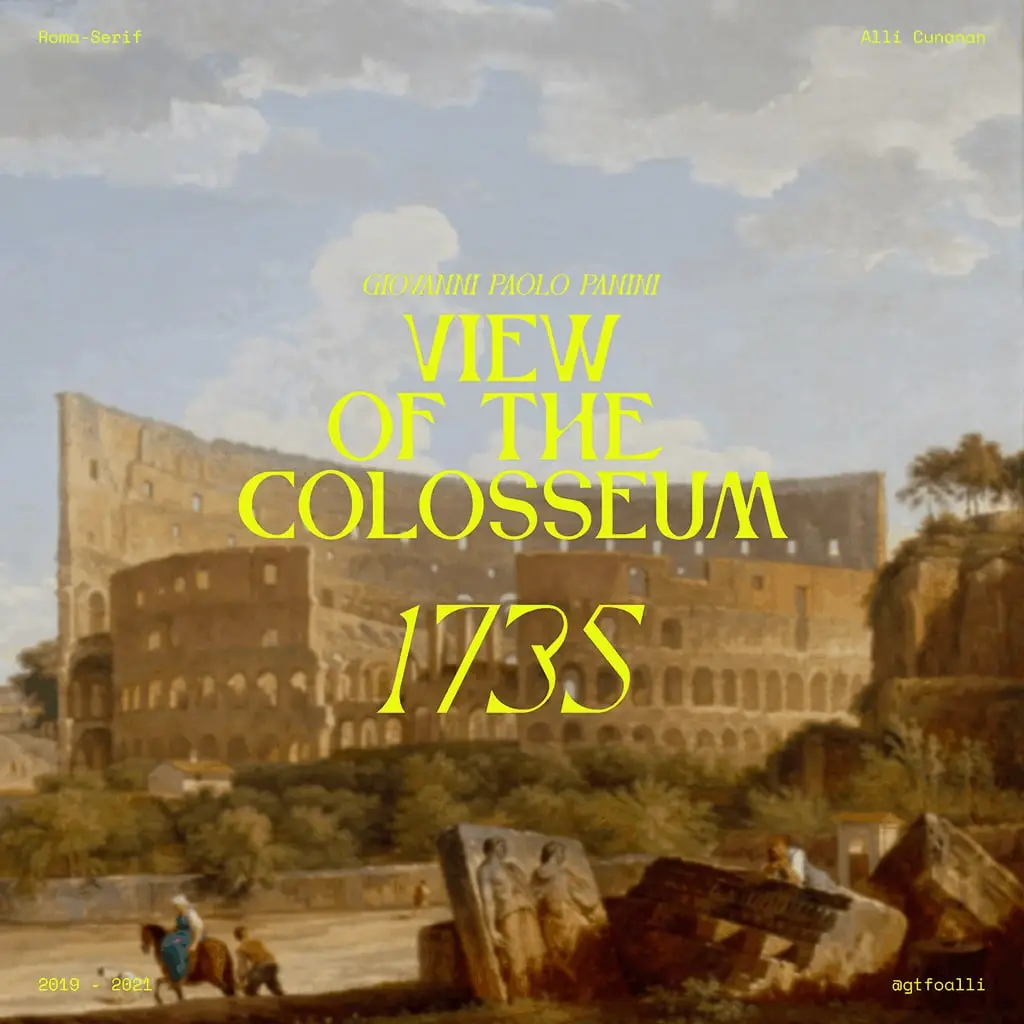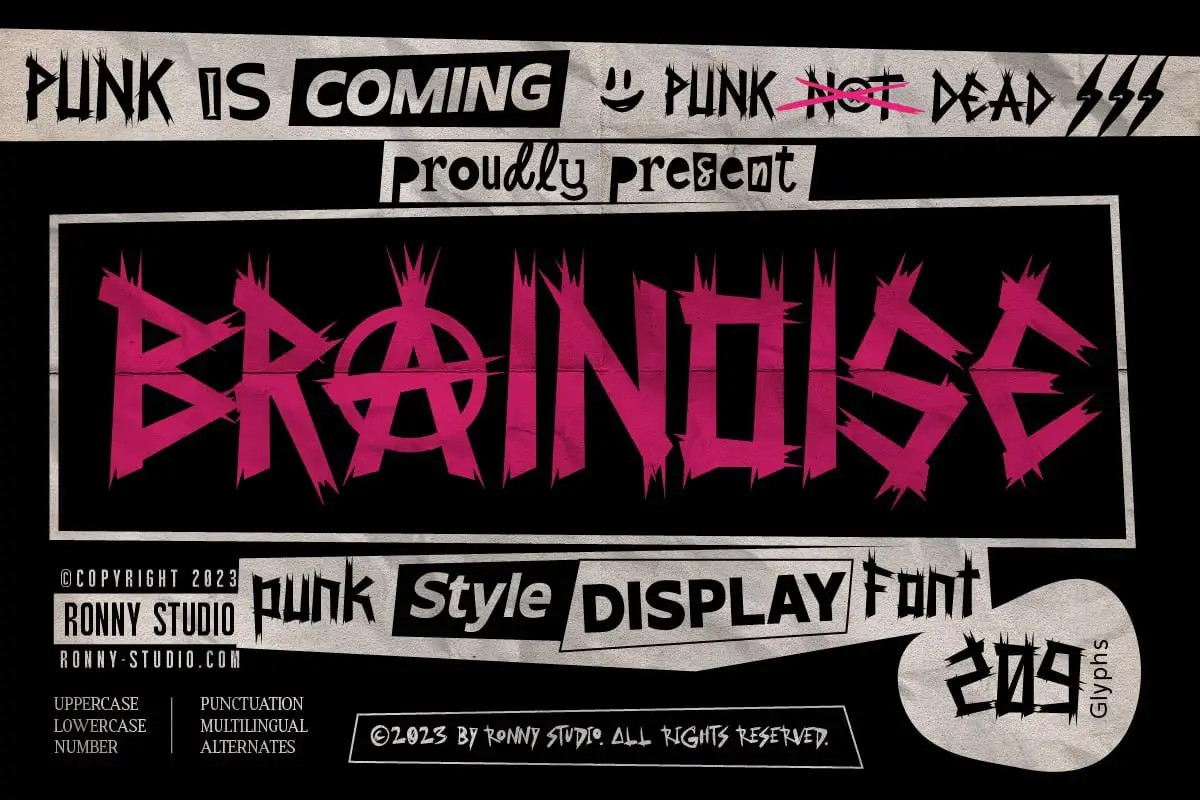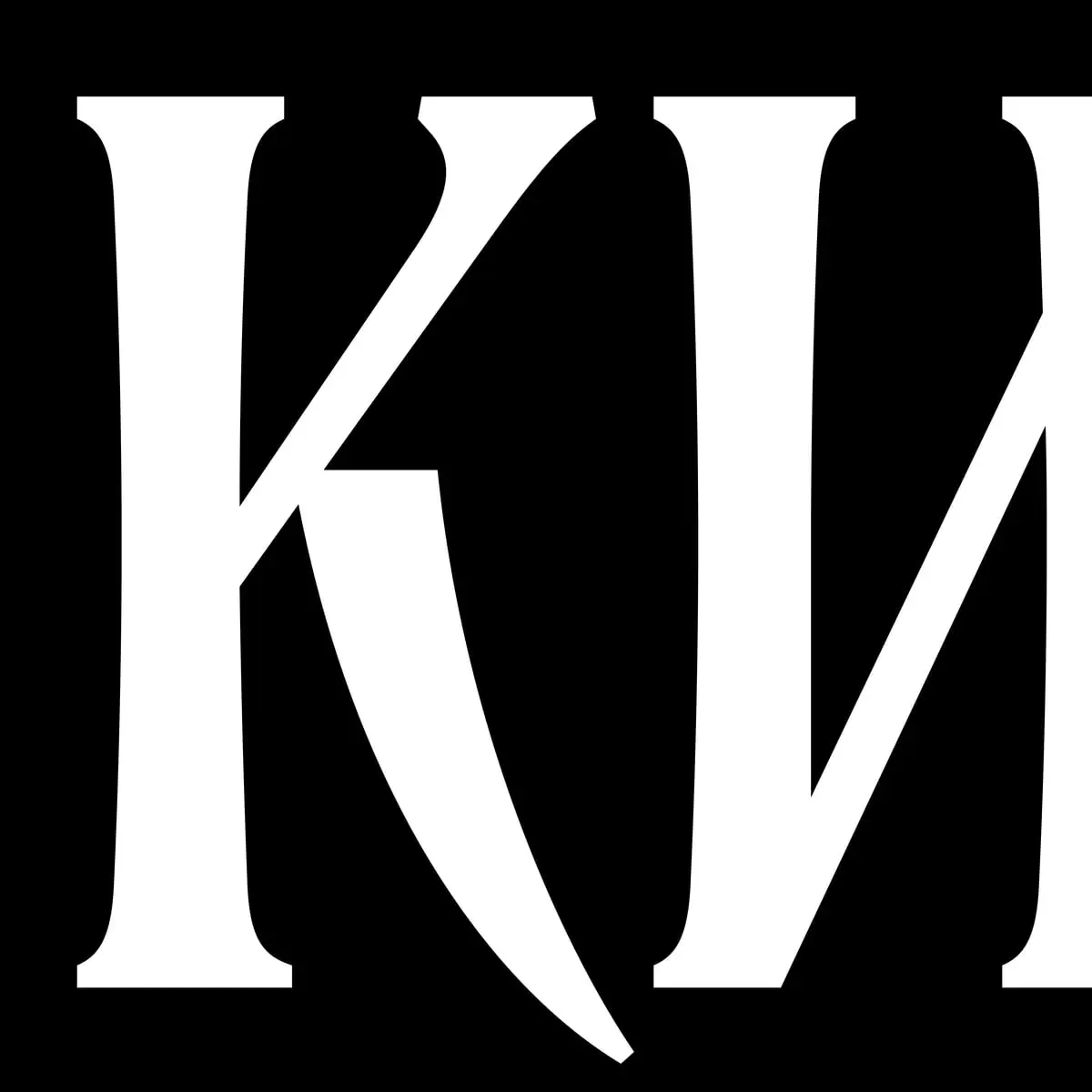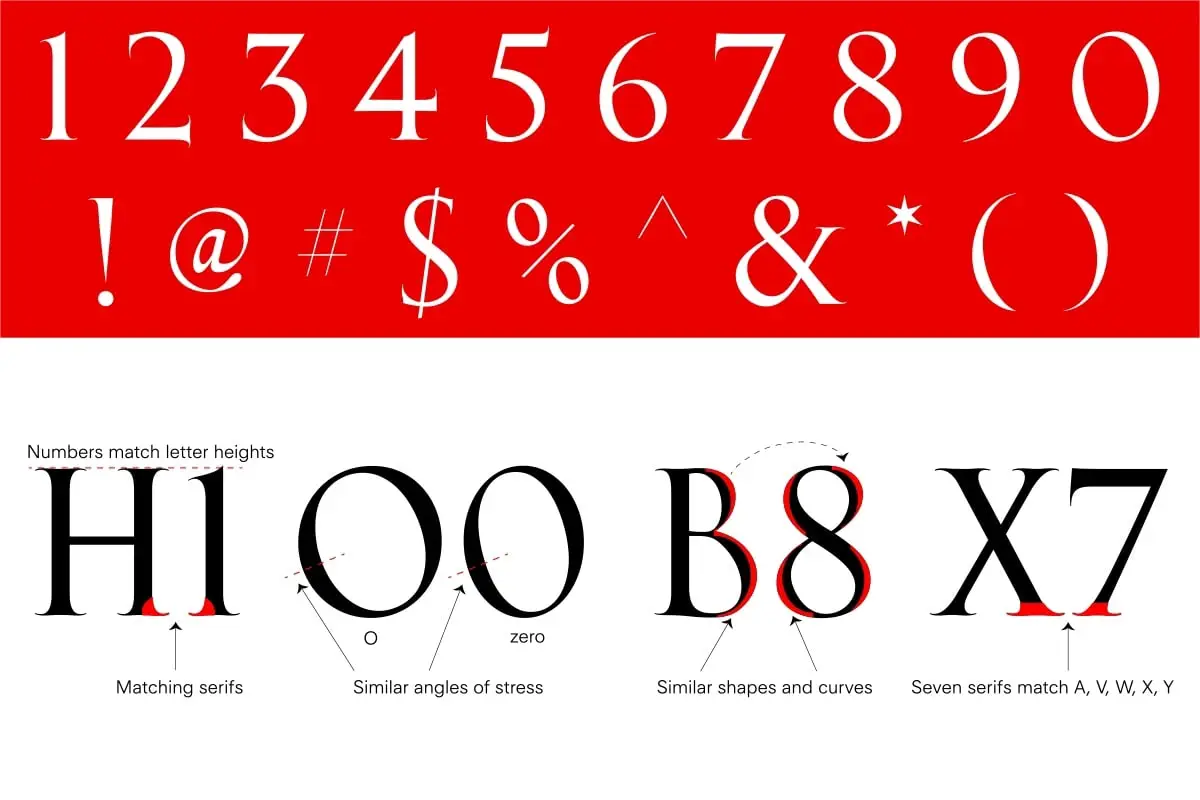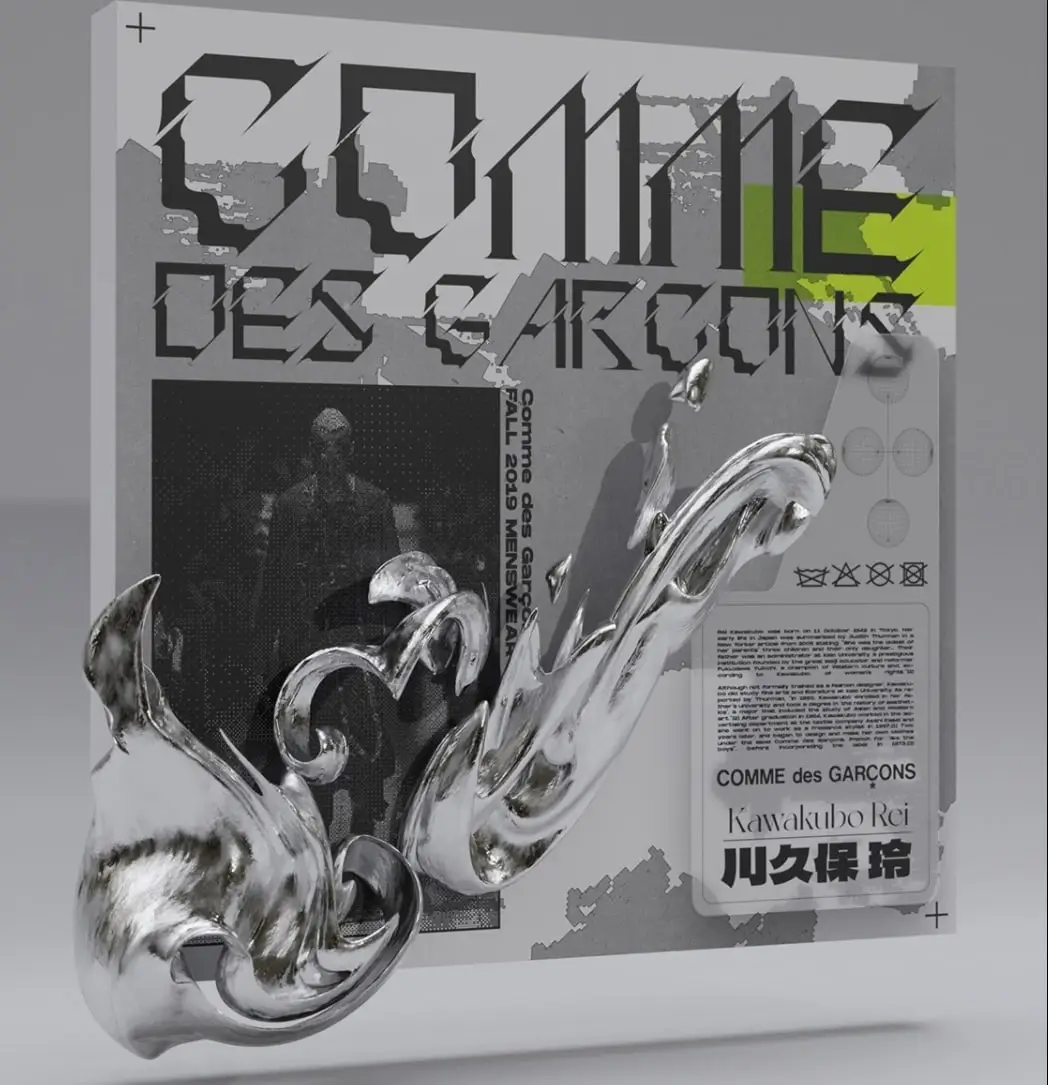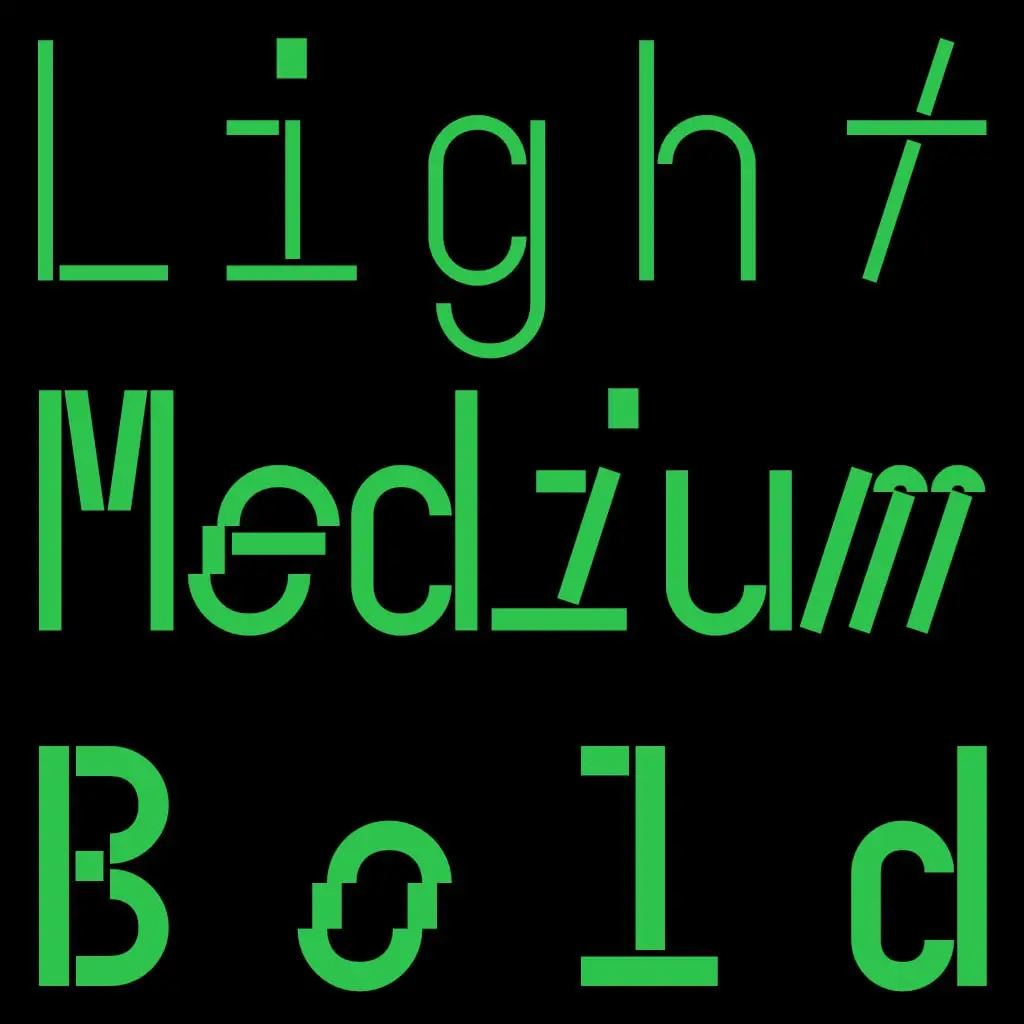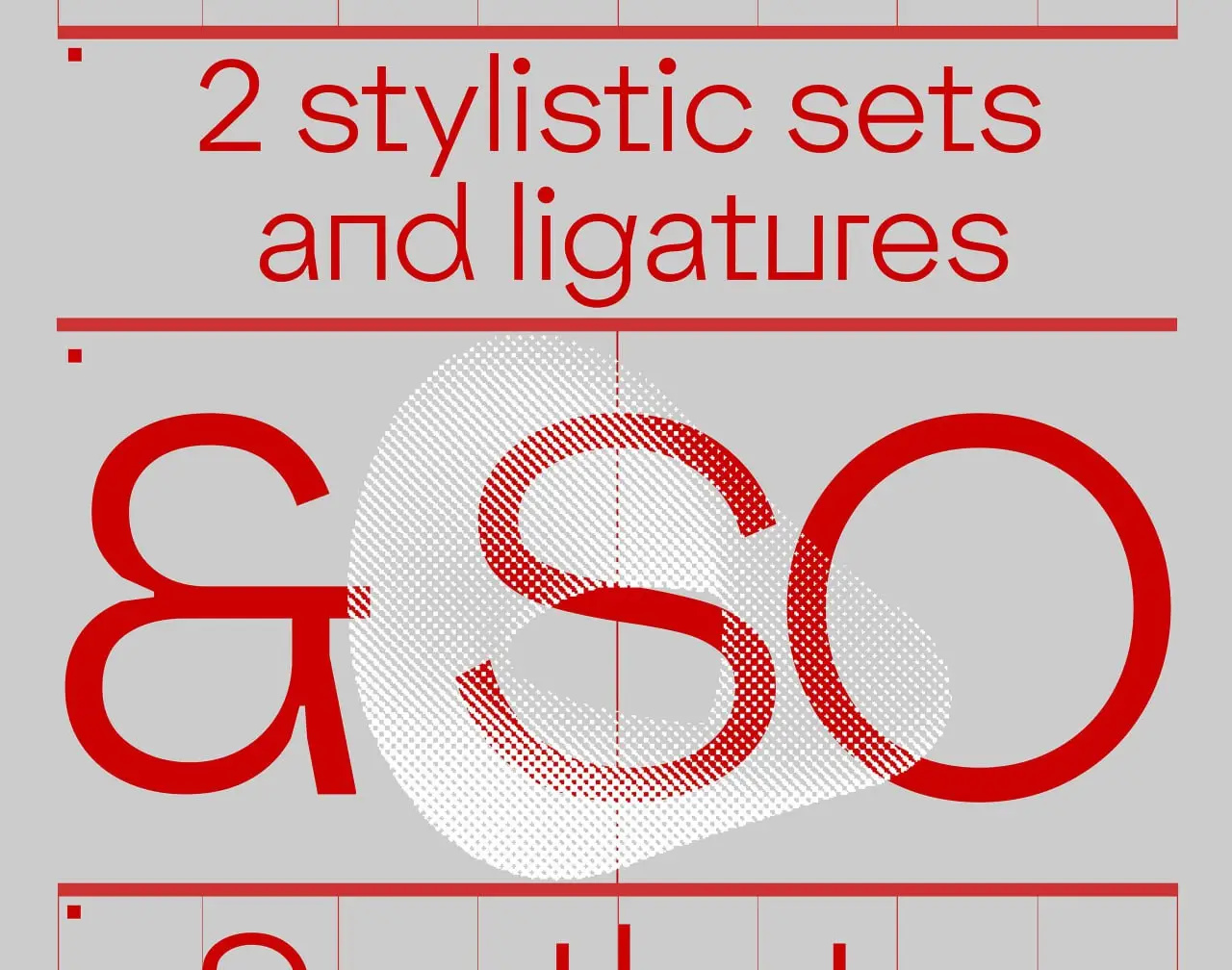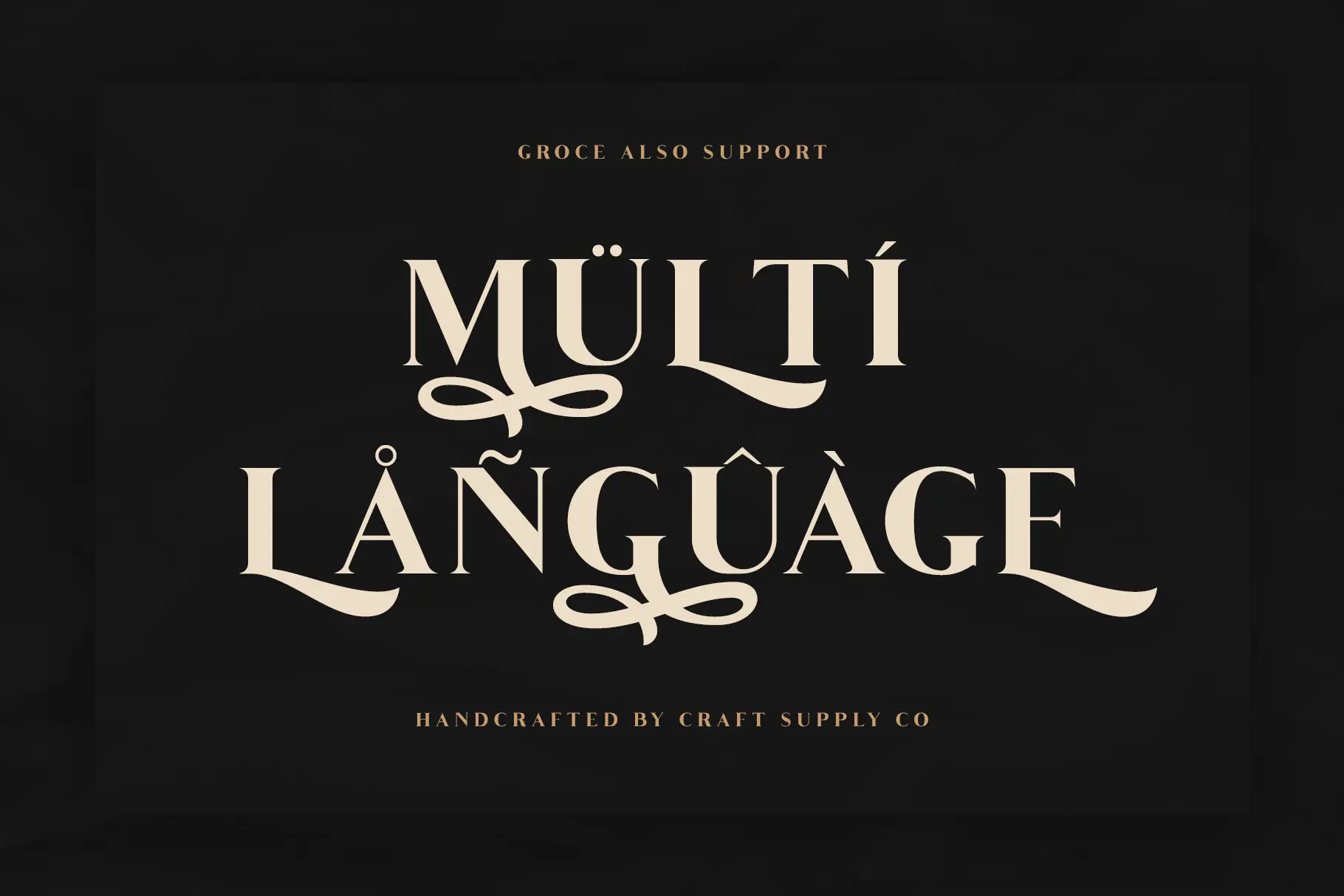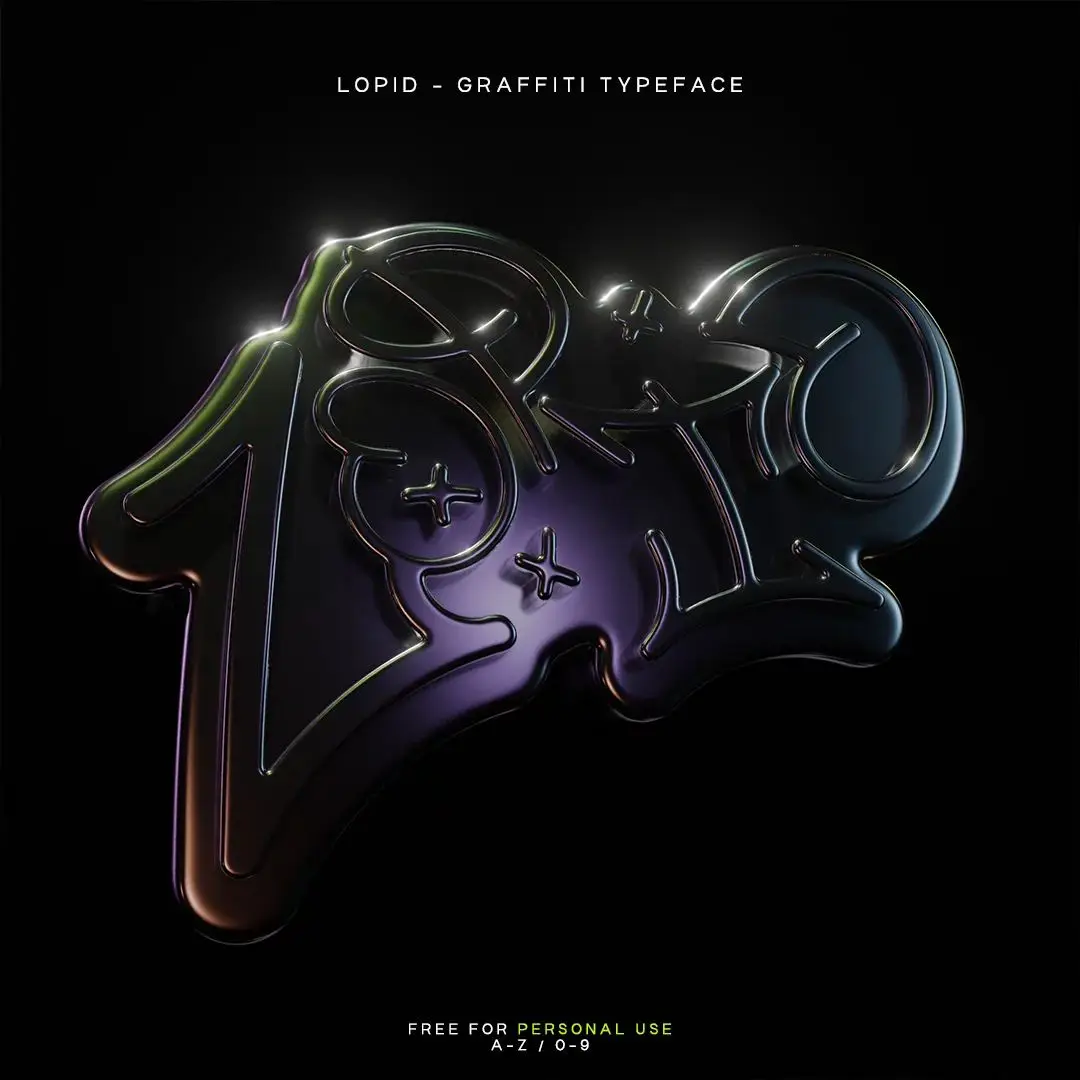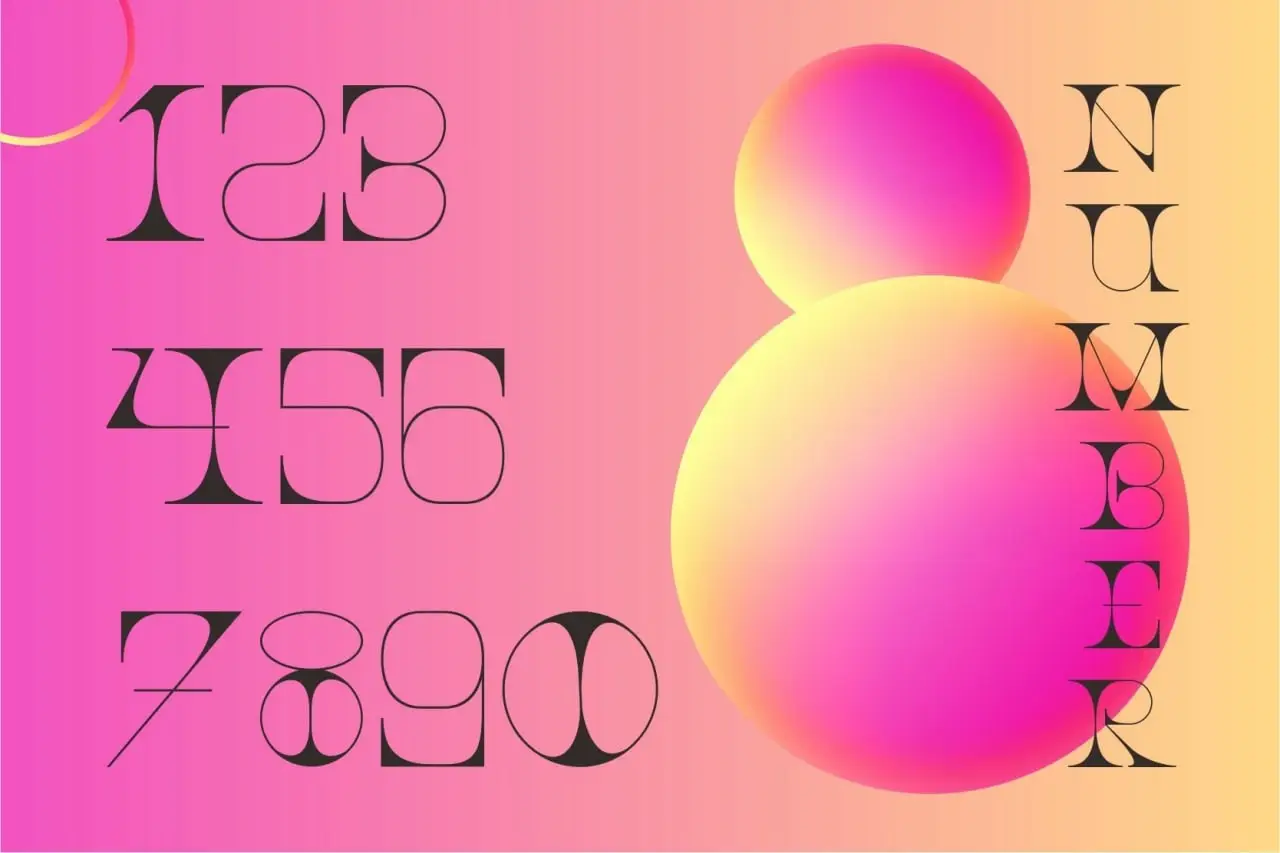
Welcome back, creative souls! 🎨✨ We’re diving into the fabulous world of BrushesPack Collection Part 98, and trust me, you’re in for a treat. Whether you’re a seasoned designer hunting for that perfect typeface or a digital artist looking for versatile assets to spice up your workflow, this collection has something magical for everyone. 🚀 Let’s explore 20 incredible products that will elevate your projects from great to jaw-dropping!
Why Use These Digital Design Assets & Fonts?
Having the right tools in your creative arsenal is like having the perfect brush for a masterpiece. These assets save you time, boost your creativity, and ensure your designs stand out in a crowded digital landscape. From playful fonts that make you smile to sophisticated serifs that scream elegance, each piece in this collection is crafted to make your life easier and your art more stunning. 🎨💡
Top 20 Digital Design Picks 🚀
Groce
Get ready to flex your creative muscles with Groce! 🦸♂️ This versatile digital asset slides right into any workflow, offering high-quality elements that are super easy to customize. Perfect for branding, social media graphics, or just adding a dash of flair to your next project!
Made Future X
Step into tomorrow with Made Future X! ⏳🚀 This collection is bursting with rich color palettes and unique graphic elements that are perfect for both web and print. Customizable layouts mean you can make it your own in seconds!
St-Bubblegum By Alexander Shimanov
Who doesn’t love a little sweetness in their designs? 🍬✨ St-Bubblegum is a playful, rounded font that’s pure joy! With multiple weights and a cheerful vibe, it’s perfect for kids’ projects, party invitations, or anything that needs a lighthearted touch.
Lopid-Graffiti Typeface
Unleash your inner street artist with Lopid-Graffiti! 🎤🖌️ Bold, dynamic, and full of urban attitude, this typeface captures the raw energy of street art. Perfect for posters, album covers, or edgy branding that demands attention.
Alli Cunanan-Roma Serif
Elegance meets modernity in the stunning Alli Cunanan-Roma Serif! 🌹✨ With balanced proportions and multiple weights, this serif font is a dream for anything from wedding invitations to high-end magazine layouts. Classy and timeless!
Smoke Font By Daniil Toropov
Float like smoke, design like a pro! 🌫️🔥 The Smoke Font by Daniil Toropov is pure fluid elegance. With multiple weights and OTF/TTF formats, it’s ideal for logos, branding, or any project that needs a stylish, modern twist.
Cofo Meteor
Blast off your creativity with Cofo Meteor! 🌠🚀 This asset packs high-quality graphics and fully customizable elements that work seamlessly across all major design software. It’s like finding a shooting star for your design toolkit!
Brainoise By Rony Rizki Jaya
Spark your imagination with Brainoise! 🧠✨ This unique asset blends creativity with functionality, offering high-quality digital assets that adapt to any design style. It’s the perfect companion for designers who love to innovate.
Neil Summerour Positype-Halogen Family
Illuminate your designs with the Halogen Family! 💡🔥 This versatile collection offers multiple weights and a clean, modern aesthetic. Perfect for corporate branding, editorial design, or any project that demands clarity and style.
Ron Font Free By Reza Rasenda
Say hello to Ron Font—a contemporary stunner with clean lines and versatile styles! 💫✨ With multiple weights and a sleek design, it’s fantastic for modern branding, app interfaces, or minimalist posters.
Rym Font By Fabiola Mejia
Rym Font is a masterpiece of soft curves and sharp edges! 🌸🗡️ Designed by Fabiola Mejia, it comes in Regular, Bold, and Italic styles with multiple weights. Ideal for fashion branding, editorial spreads, or anything that needs a touch of sophisticated contrast.
Reusco-Display Font
Make a bold statement with Reusco-Display! 🎤💥 This striking font is perfect for headlines and logos, with a modern aesthetic that grabs attention. Multiple weights and uppercase letters give you all the power you need to stand out.
Redmayne Font
Redmayne is pure class with a modern edge! 🎩✨ Featuring multiple weights, stylish uppercase/lowercase, and numerous ligatures, this font is perfect for branding, certificates, or any project where sophistication matters.
Muntab Art-Le Monte Serif Display
Add a touch of sophistication with Le Monte Serif Display! 🏛️🌟 This stunning serif typeface is made for eye-catching headlines and logos. With multiple weights, it brings elegance and class to every project.
Niguella (C) Ahdrim Studio
Get unique with Niguella by Ahdrim Studio! 🎨✨ This versatile asset is packed with high-quality, customizable elements that work perfectly across any design software. It’s the secret weapon for creative pros who love flexibility.
Geom By Wasted Type
Go geometric with Geom! 🔺🟦 This modern font from Wasted Type is all about bold shapes and clean lines. Multiple weights and wide language support make it ideal for branding, web design, and print materials that pop.
What is the BrushesPack Collection Part 98?
It’s a curated selection of digital design assets and fonts from BrushesPack, featuring 20 unique products like typefaces, graphic elements, and vector packs. Perfect for designers, artists, and creatives looking to enhance their projects.